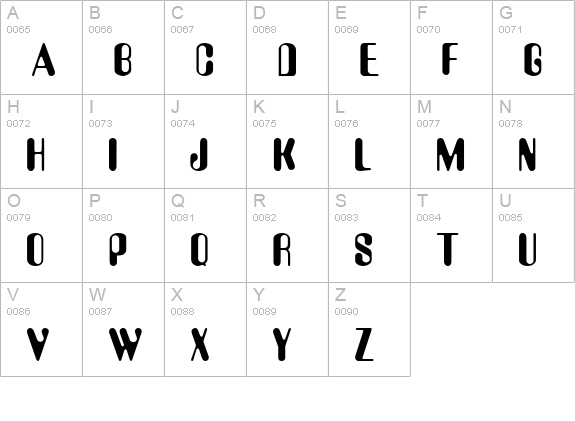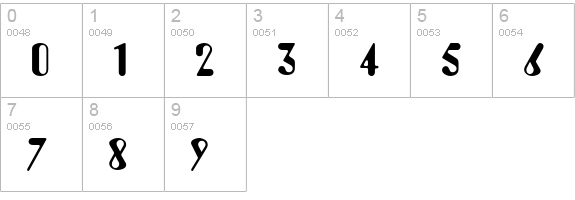
Amos Normal is the standard, neutral variant in the Amos typeface family \xE2\x80\x94 well suited to general body text, paragraphs, and standard typographic work.
Amos Normal font is a versatile and modern typeface that combines elegance with readability. Its clean lines and balanced proportions make it ideal for a wide range of design projects, from branding to editorial content. With a timeless aesthetic and a touch of sophistication, Amos Normal font adds a touch of class to any design. Best of all, Amos Normal font is completely free to download at FontsMarket.com. So whether you're a designer looking to elevate your projects or a business owner wanting to enhance your brand identity, Amos Normal font is the perfect choice. Download it today and start using this beautiful typeface in your creations.